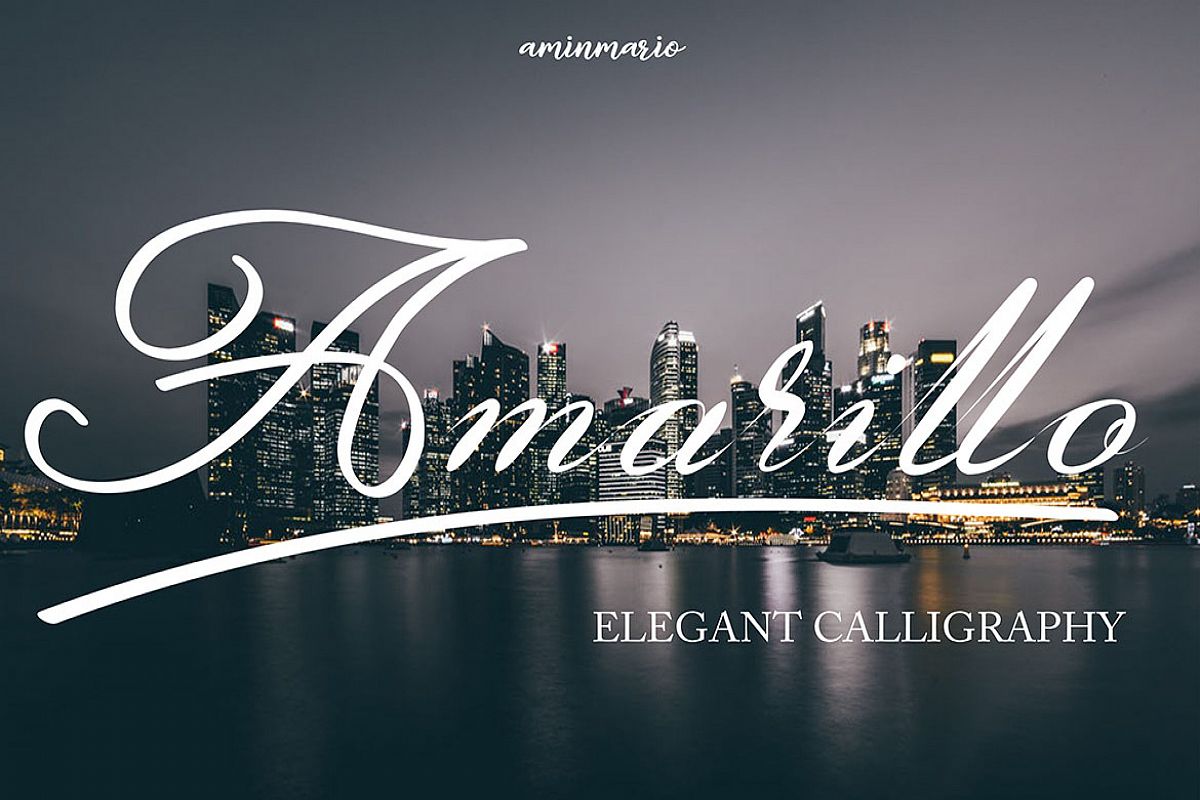
Amarillo | Elegant Calligraphy
Amarillo is an elegant calligraphy script font. Has a modern feel and natural writing style.
Amarillo has 26 swash type underlines that can be chosen according to taste.This is suitable for logos, watermarks on photography, signatures, quotes, album covers, business cards, clothing, magazines, posters, and more!